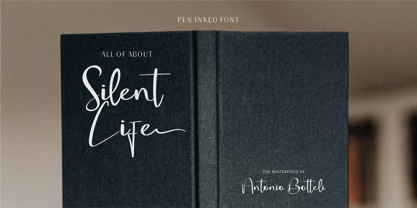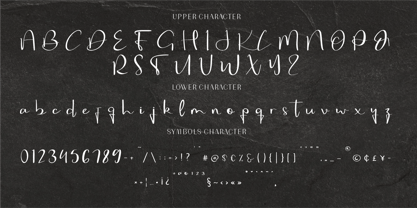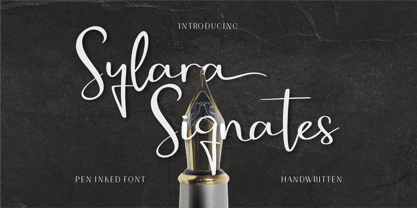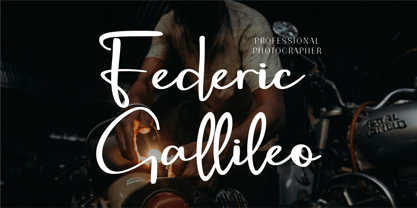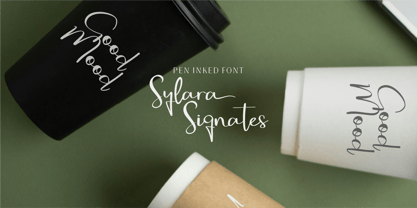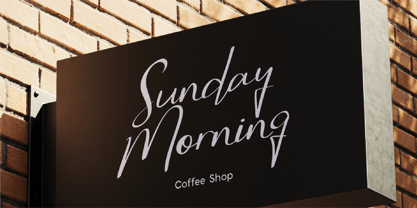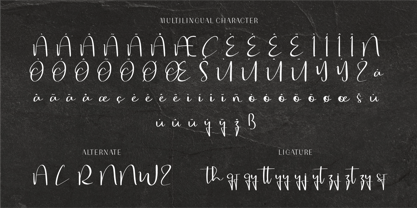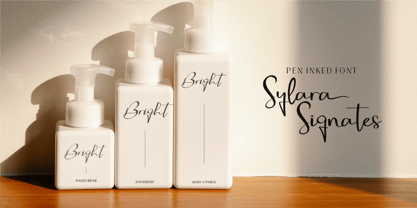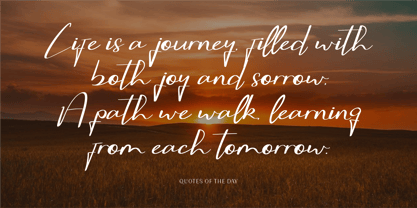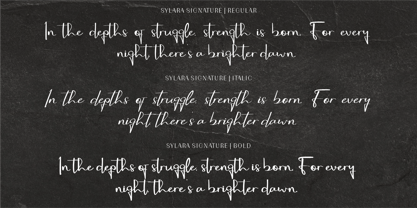
CF Sylara Signates
von Indotype
Die Schriftfamilie CF Sylara Signates wurde von Gilang Mei Nugraha, Frederik Aristaputra entworfen und von Indotype veröffentlicht. CF Sylara Signates enthält 3 Stile und Familienpaketoptionen.
Sylara Signates is an exquisite pen-inked handwritten font, beautifully capturing the essence of authentic signatures. With its elegant curves, smooth flow, and natural handcrafted strokes, this font brings a sophisticated yet approachable look. Designed to emulate the luxury of ink on paper, it is perfect for branding, wedding invitations, logos, and personal designs. Whether you're crafting a heartfelt message or creating professional designs, Sylara Signates delivers timeless charm and refined elegance, leaving a lasting impression.
Standard Character A-Z, a-z, 0-9, Punctuation & symbols
Regular, Italic & Bold
Multilingual Support
Designer: Gilang Mei Nugraha, Frederik Aristaputra